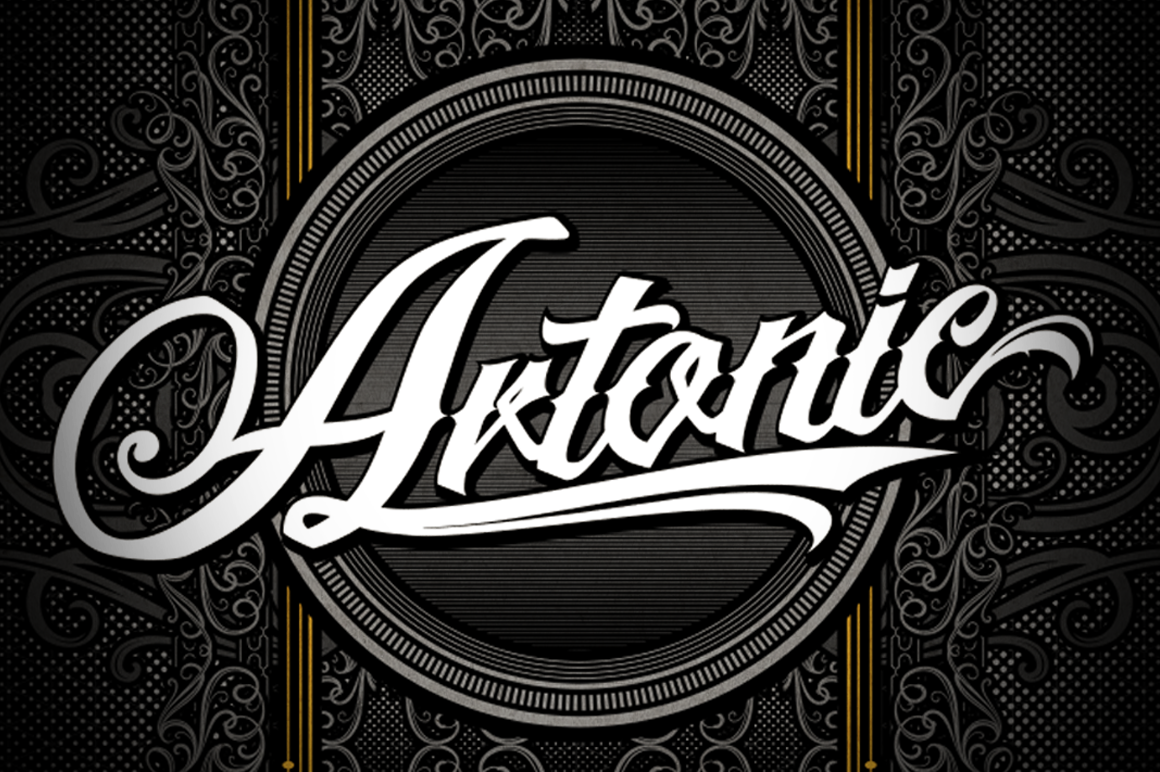
Artonic typeface +Bonus Pack
Artonic is tattoo script typeface inspired by elegant script and sharp look typeface,the characteristic of artonic is flowing edge,elegant,sharp and black,These typefaces are made out of pride and passion for urban tattoo design. Of course Artonic comes Multiple language support with variety of ligatures, swash, and alternates characters uppercase and lowercase forms, available through OpenType features